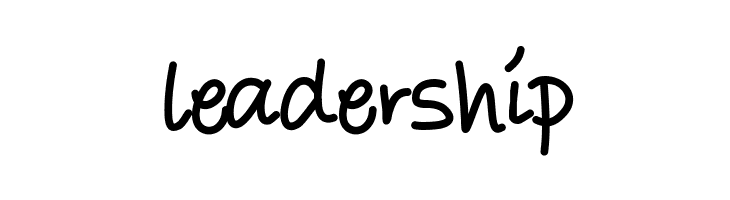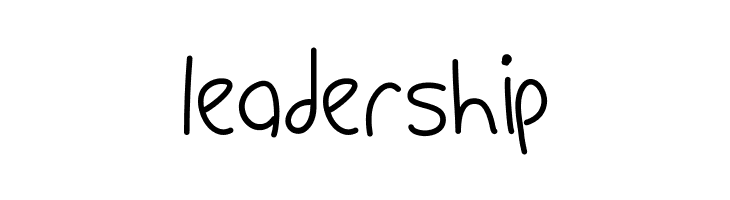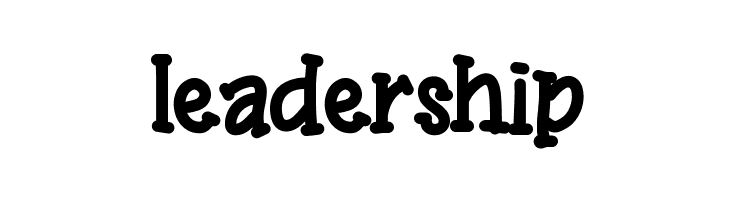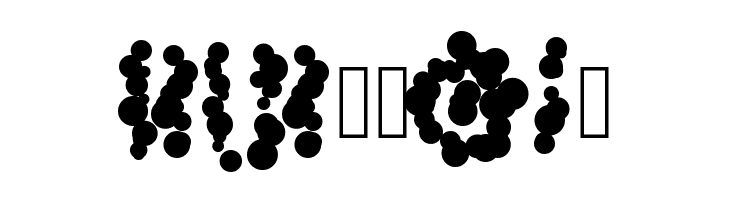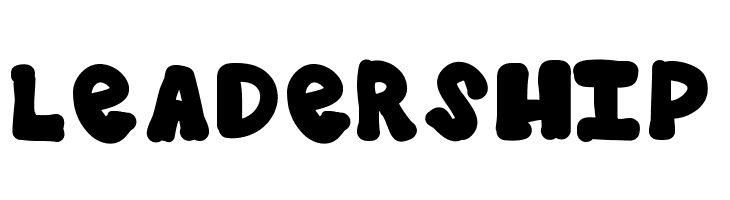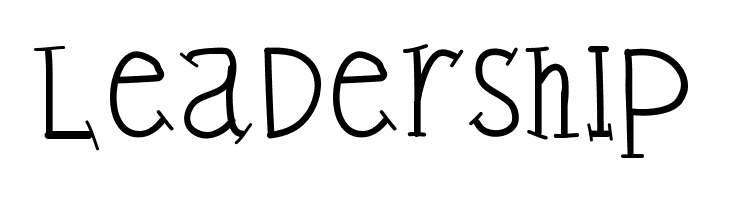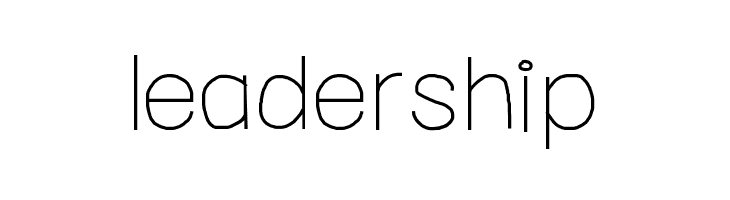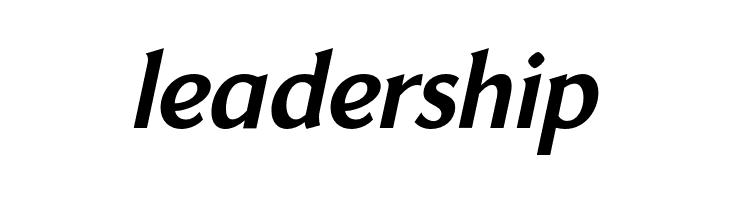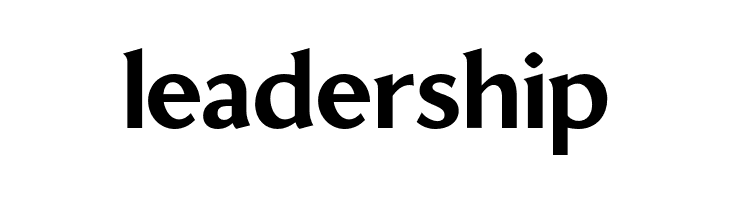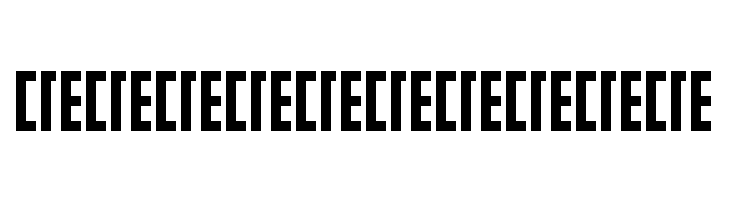
( Fonts by Des Gomez )
A playful, hand-drawn font with a sketch-like, artistic style.
( Fonts by Elleanor Vickery )
A bold, playful handwritten font with rounded, casual letterforms.
( Me )
A playful, hand-drawn font with uneven strokes and a whimsical style.
A geometric, modern font with a digital, blocky style.
( Hazel Abbiati - diamondidiocy.tumblr.com )
A tactile Braille font designed for accessibility.
( Hazel Abbiati - diamondidiocy.tumblr.com )
A bold, blocky, outlined font with a retro, pixelated style.
( Hazel Abbiati - diamondidiocy.tumblr.com )
A pixelated, blocky font with a retro digital aesthetic.
( marty bee )
An abstract, eclectic font with playful, artistic character designs.
( Leonard Posavec - LeoSupply.co - Leonard Posavec - leosupply.co )
A dynamic and flowing script font with elegant, cursive letterforms.
A bold, modern serif font with clean lines and a versatile style.
A modern italic font with smooth curves and balanced contrast.
( Fonts by Vanessa Bays - bythebutterfly.com )
A playful, hand-drawn font with curly, rounded letterforms.
( Fonts by Des Gomez )
( Fonts by Youaremark! )
A bold, hand-drawn font with high contrast and dynamic character shapes.
( Fonts by Macie Menard )
A playful, bold, and hand-drawn font with rounded edges and a whimsical charm.